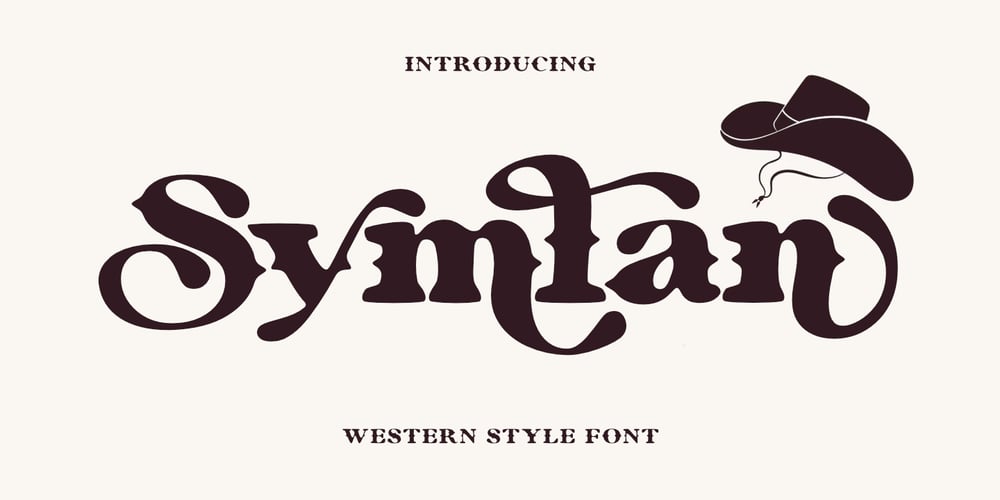
Symlan Font Family was designed by Saiful Anwar and published by Sealoung. Symlan contains 1 styles and family package options. Symlan Font – A Western-Themed Typeface with Abundant AlternatesStep into the wild west with Symlan, a stunning western-themed typeface that brings a touch of rustic charm and vintage flair to your designs. Inspired by the rugged beauty and timeless spirit of the old west, Symlan captures the essence of frontier typography with a modern twist.Key Features : Western-Themed Design: Evoke the bold, adventurous spirit of the west with Symlan’s unique letterforms and intricate details. Extensive Alternates: Personalize your text with a variety of alternate characters, ensuring every word stands out with style and authenticity. Versatile Use: Perfect for posters, branding, logos, headlines, and more, Symlan adds a distinctive western charm to any project. Complete Character Set: Includes uppercase letters, numbers, and punctuation, offering comprehensive design possibilities. Multilingual Support: Includes a wide range of accented characters, making it suitable for multiple languages and ensuring your message reaches a global audience. Whether you’re designing for a vintage-themed event, creating a standout logo, or adding a touch of western nostalgia to your project, Symlan is the perfect typeface to bring your vision to life. Embrace the frontier spirit and let your creativity roam free with Symlan.